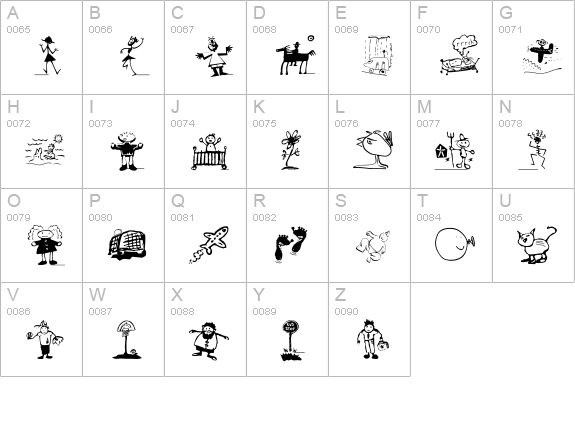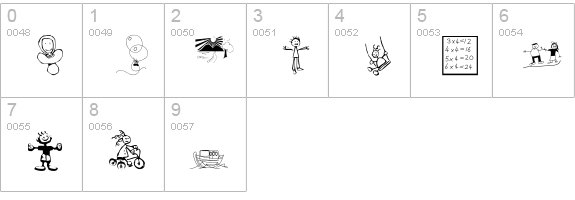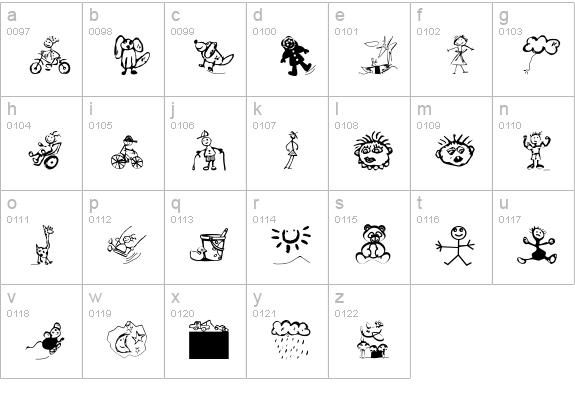
ForKids Font Details
Introducing ForKids font, a playful and whimsical typeface that is perfect for all your creative projects! This fun and friendly font is designed to bring a touch of joy and cheer to any design you create. With its rounded edges and charming appearance, ForKids font is sure to add a touch of whimsy to your projects. The best part? ForKids font is completely free to download at FontsMarket.com! That's right, you can easily access this delightful font without any cost, making it the perfect choice for budget-conscious designers looking to add a bit of fun to their work. Download ForKids font today and let your creativity soar with this charming and cheerful typeface!